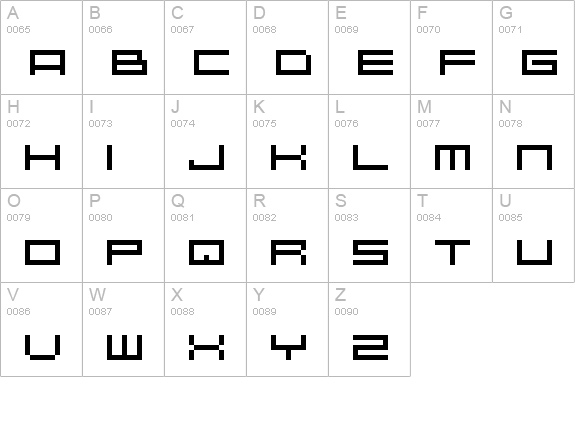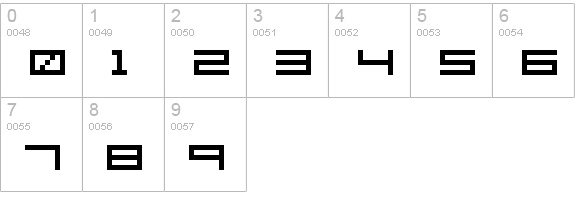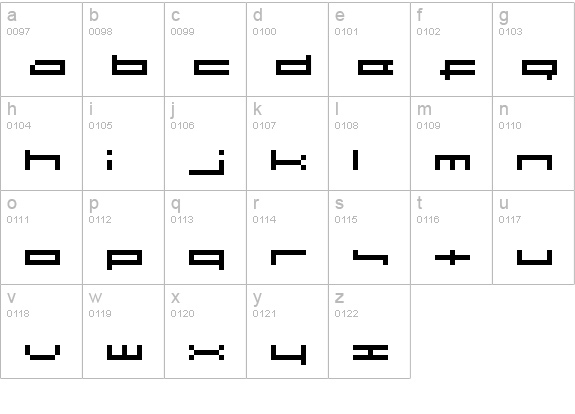
SHAKAGRAPHICS 06 Font Details
Introducing SHAKAGRAPHICS 06, a stunningly versatile font that embodies the perfect combination of modernity and creativity. This font is designed to captivate and inspire, making it the ideal choice for any project that requires a touch of uniqueness and flair. With its bold and eye-catching letterforms, SHAKAGRAPHICS 06 commands attention and effortlessly elevates any design to new heights. Whether you're creating a logo, designing a poster, or crafting a website, this font will undoubtedly make a bold statement and leave a lasting impression. But what truly sets SHAKAGRAPHICS 06 apart is its accessibility. This font is not only visually striking, but it is also freely available to download at FontsMarket.com. Yes, you read that right – you can now enhance your designs with this extraordinary font without having to spend a dime. In addition to being free, SHAKAGRAPHICS 06 is extremely versatile, allowing for seamless integration into a wide range of design styles. Its clean lines and modern aesthetic make it suitable for everything from minimalistic designs to edgy and futuristic projects. No matter the context, this font effortlessly adapts and enhances the overall visual appeal. Furthermore, SHAKAGRAPHICS 06 boasts an extensive character set, ensuring that it supports multiple languages and accommodates various typographic needs. From English to French, Spanish to German, this font delivers excellent legibility and consistency across different alphabets and scripts. So, don't miss out on this incredible opportunity to elevate your designs with the captivating SHAKAGRAPHICS 06 font. Download it for free at FontsMarket.com and unlock a world of creative possibilities. Whether you're a professional designer, a creative enthusiast, or simply someone who appreciates exceptional typography, SHAKAGRAPHICS 06 is a must-have addition to your font library.